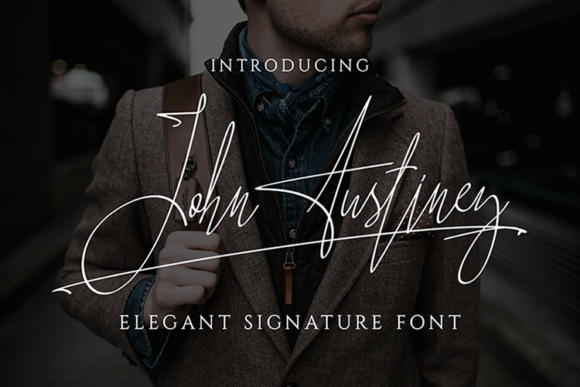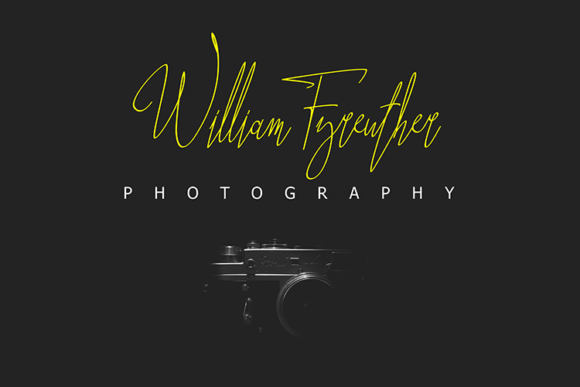
John Austiney Font
John Austiney is a very elegant and elevated signature font. With its bold and time-less elements, it adds a unique level of sophistication to any design project.